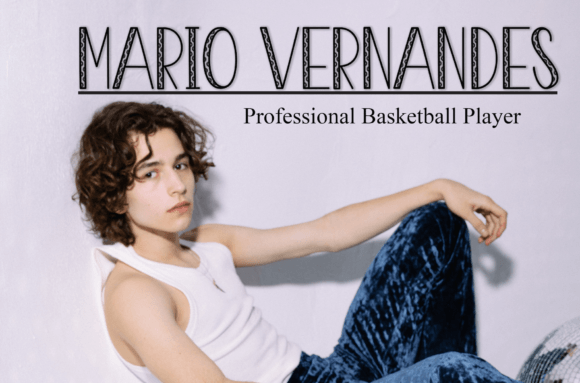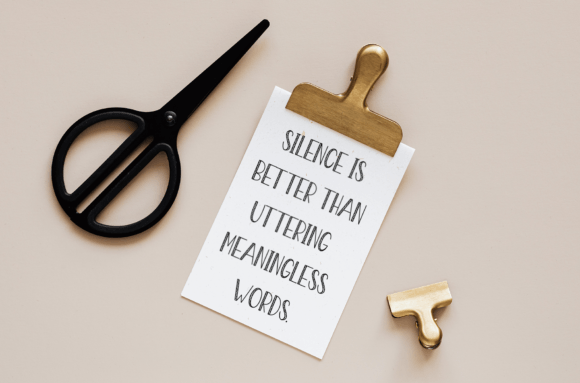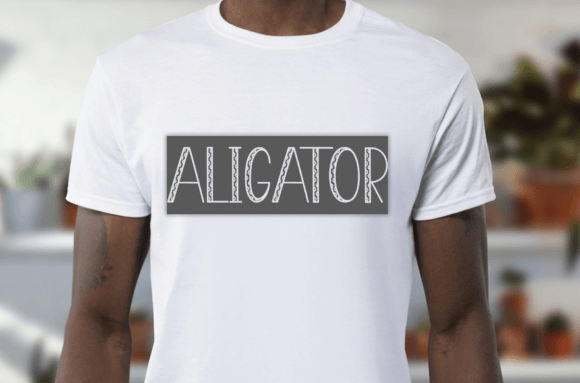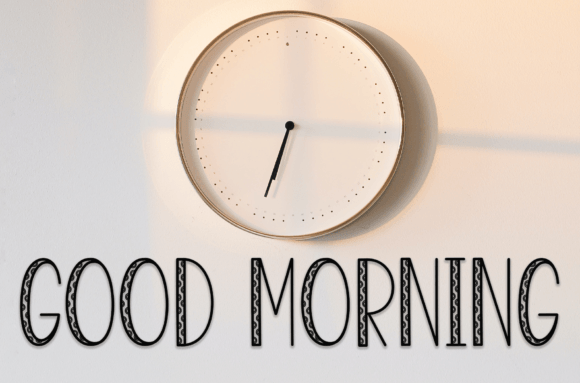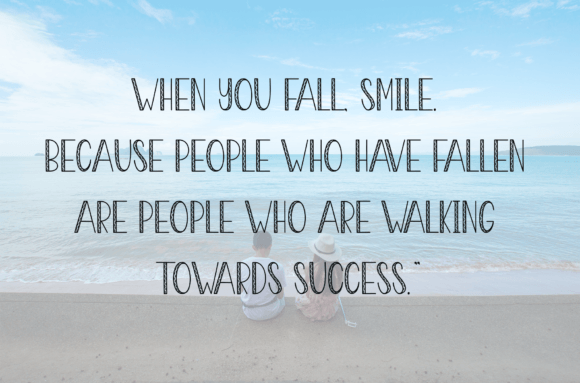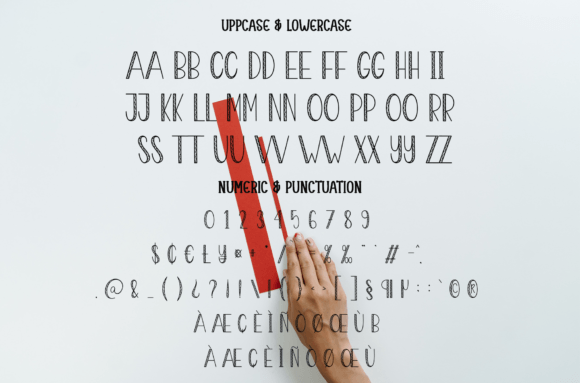
Introducing Handline Font: The Sweet and Friendly Display Font for Your Design Needs
Are you looking for a font that can add a touch of sweetness and friendliness to your designs? Look no further than Handline Font! This beautiful display font is perfect for creating wedding invitations, cards, and other designs that require a fun and playful touch. In this article, we’ll take a closer look at Handline Font, its features, and how you can use it to elevate your designs.
What is Handline Font?
Handline Font is a modern display font that is designed to be both fresh and neat. Its clean lines and curves make it perfect for creating beautiful and eye-catching designs. The font is highly versatile and can be used for a wide range of design projects, from wedding invitations and cards to posters, flyers, and more.
Key Features of Handline Font
- Sweet and Friendly Design: Handline Font has a sweet and friendly design that is perfect for creating designs that require a personal touch.
- Fresh and Neat: The font has a fresh and neat design that makes it perfect for creating clean and modern designs.
- Highly Versatile: Handline Font is highly versatile and can be used for a wide range of design projects.
- Easily Readable: The font is easily readable, making it perfect for creating designs that require a clear and concise message.
Use Cases for Handline Font
Handline Font is perfect for a wide range of design projects, including:
- Wedding Invitations: The font’s sweet and friendly design makes it perfect for creating beautiful wedding invitations.
- Cards: Handline Font is perfect for creating greeting cards, birthday cards, and other types of cards that require a personal touch.
- Posters and Flyers: The font’s fresh and neat design makes it perfect for creating eye-catching posters and flyers.
- Social Media Graphics: Handline Font can be used to create beautiful social media graphics, including Facebook posts, Instagram posts, and more.
Tips for Using Handline Font
Here are some tips for using Handline Font in your designs:
- Use it as a Display Font: Handline Font is perfect for use as a display font, making it ideal for headings and titles.
- Pair it with Other Fonts: The font can be paired with other fonts to create a unique and interesting design.
- Experiment with Colors: Handline Font looks great in a variety of colors, so don’t be afraid to experiment and find the perfect color for your design.
In conclusion, Handline Font is a beautiful and versatile display font that is perfect for creating a wide range of designs. Its sweet and friendly design makes it ideal for wedding invitations, cards, and other designs that require a personal touch. With its fresh and neat design, Handline Font is sure to elevate your designs and make them stand out from the crowd.
Whether you’re a designer or a crafter, Handline Font is a great addition to your font collection. So why not give it a try and see how it can enhance your designs?